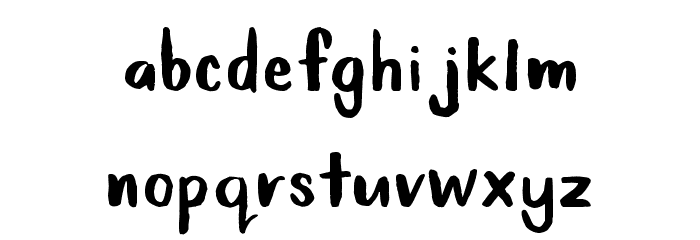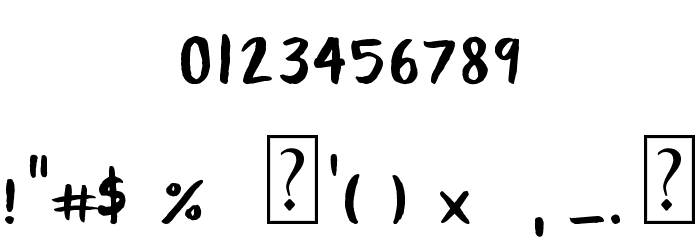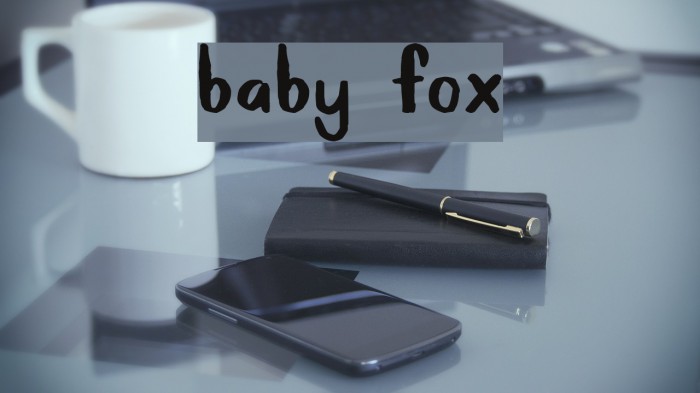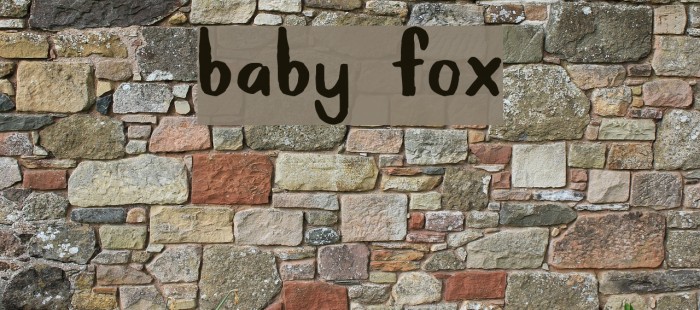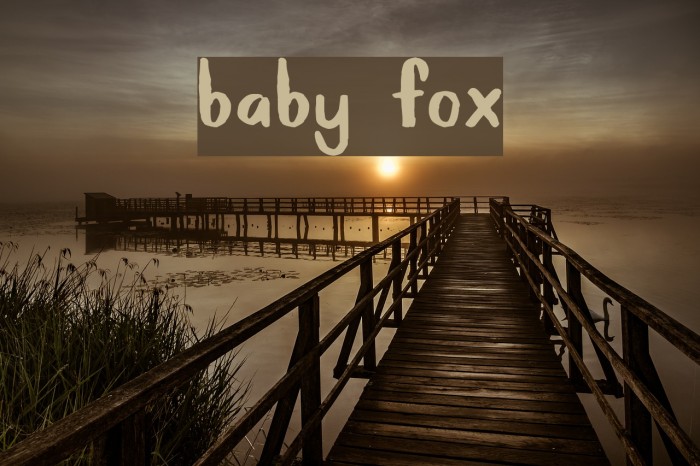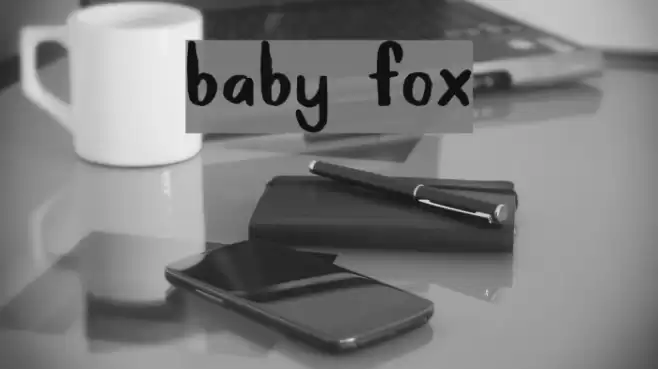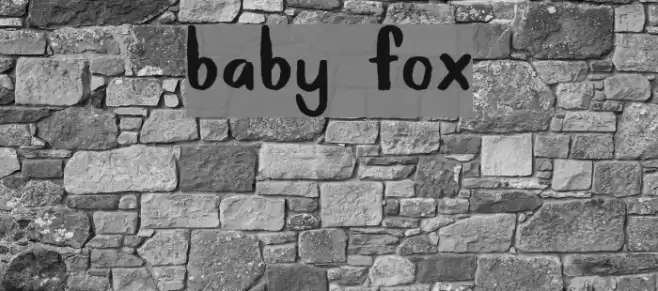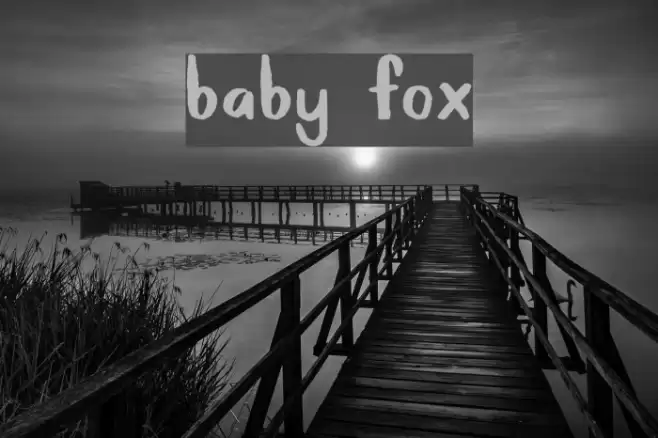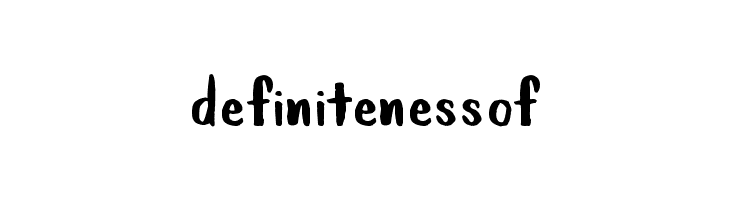
Baby Fox Font
This playful and whimsical font features a handwritten style with a casual and friendly appearance. The characters are slightly irregular, adding a touch of charm and personality. The strokes are bold and rounded, giving it a soft and approachable feel. It maintains a consistent baseline with moderate ascenders and descenders, ensuring readability while retaining its unique character. The numbers and special characters are crafted with the same playful style, making it versatile for various uses.
A playful, handwritten font with bold, rounded strokes and a whimsical charm.
- Proposed Projects: Ideal for children's books, playful branding, greeting cards, and casual invitations.
- Category: Handwritten
- Overall Style: Playful
- Use Case: Headlines, Logos, Casual Text